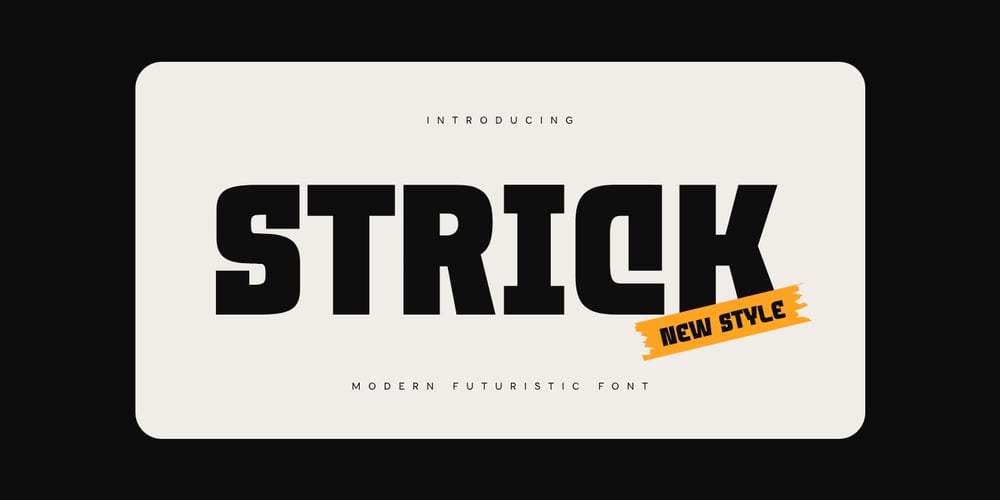
Strick
Strick font
Strick Font Family was designed by Zamroni Hamzah and published by Sensatype Studio. Strick contains 1 styles and family package options. Strick is a Modern Neo Brutalism Sans Serif Font is a well-balanced modern font with a minimalist, unique, and iconic sans serif, font that you can combine to get any variations and unique shapes easily just in seconds. It is a sans serif font with minimalist style that perfect for branding projects, logo, poster designs, social media posts, advertisements, product packaging, product designs, label, photography, watermark, invitation, stationery, and any projects, it makes with a high level of legibility.What’s Included: Strick font Character set A-Z All-Caps Font, with Variation in Uppercase & Lowercase Numerals & Punctuation Accented Characters (West Europe) Works on PC & Mac Recommended using Adobe Illustrator or Adobe Photoshop. Wish you enjoy our font. 🙂